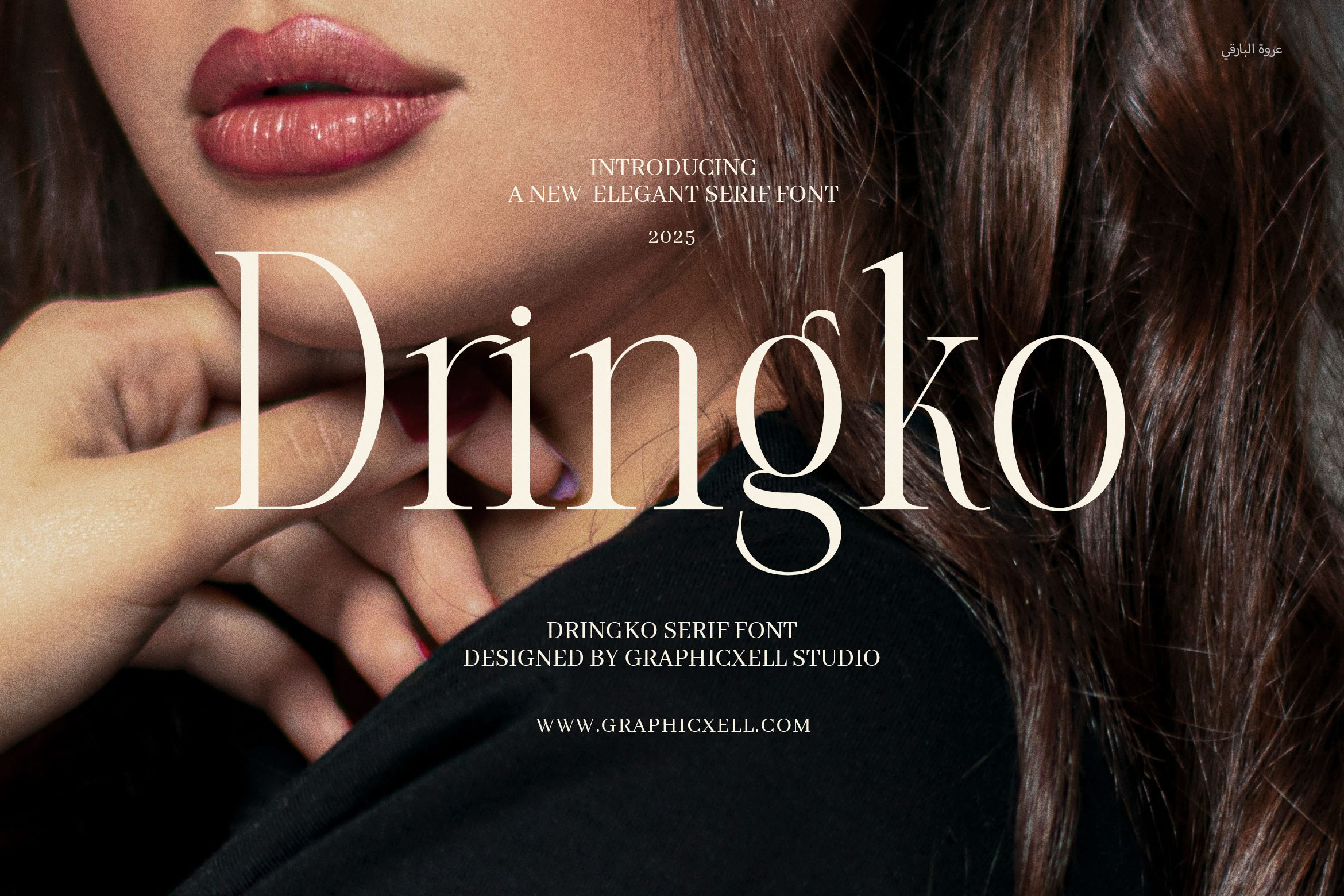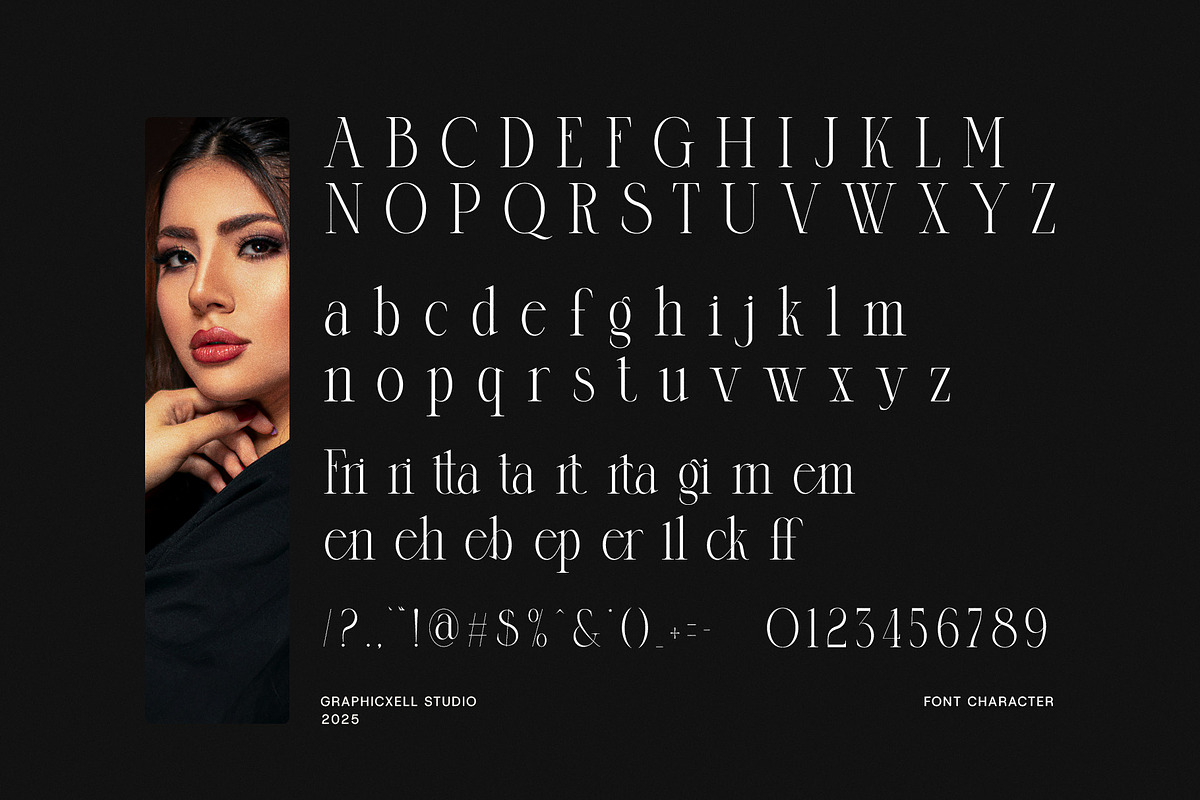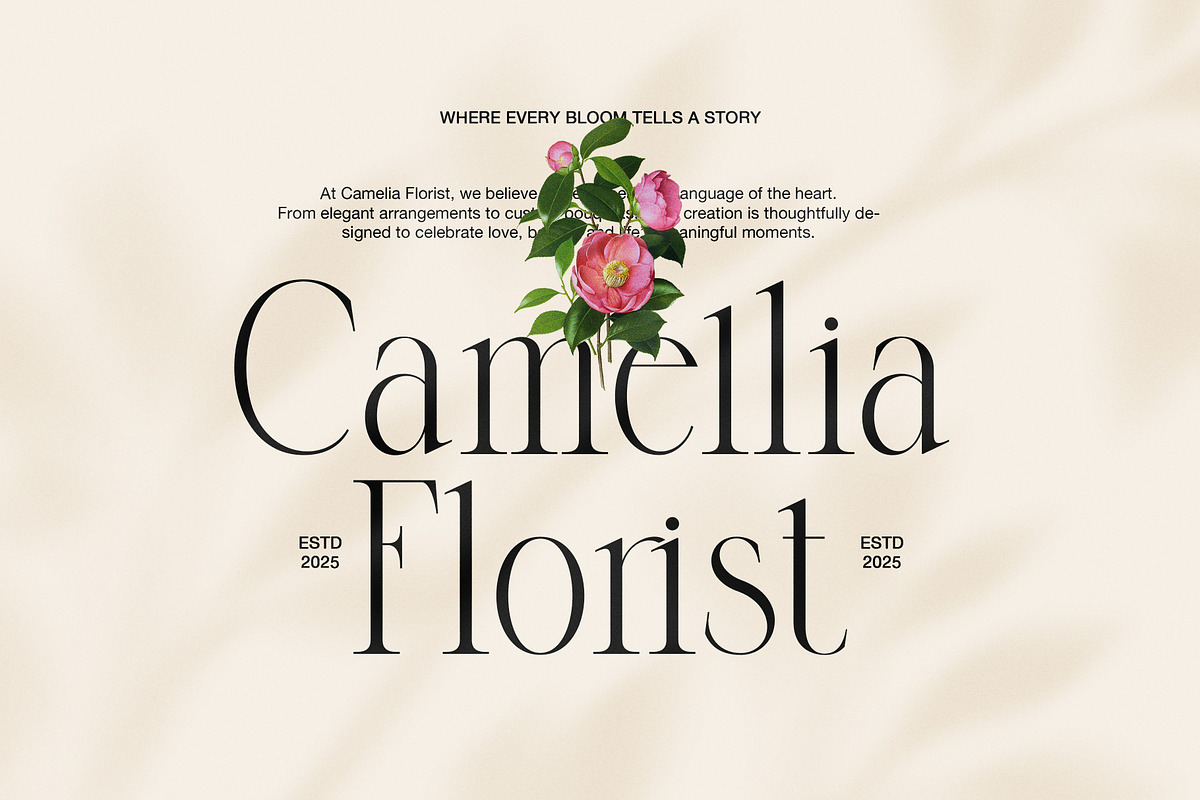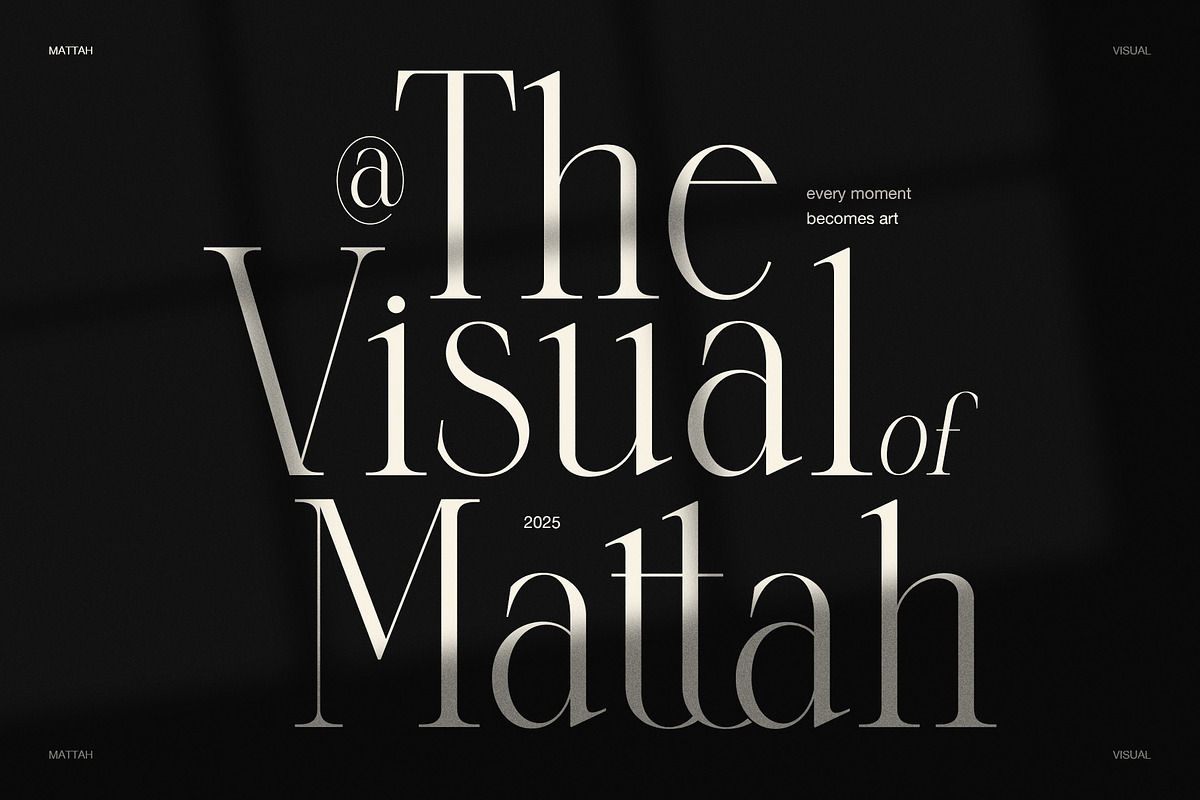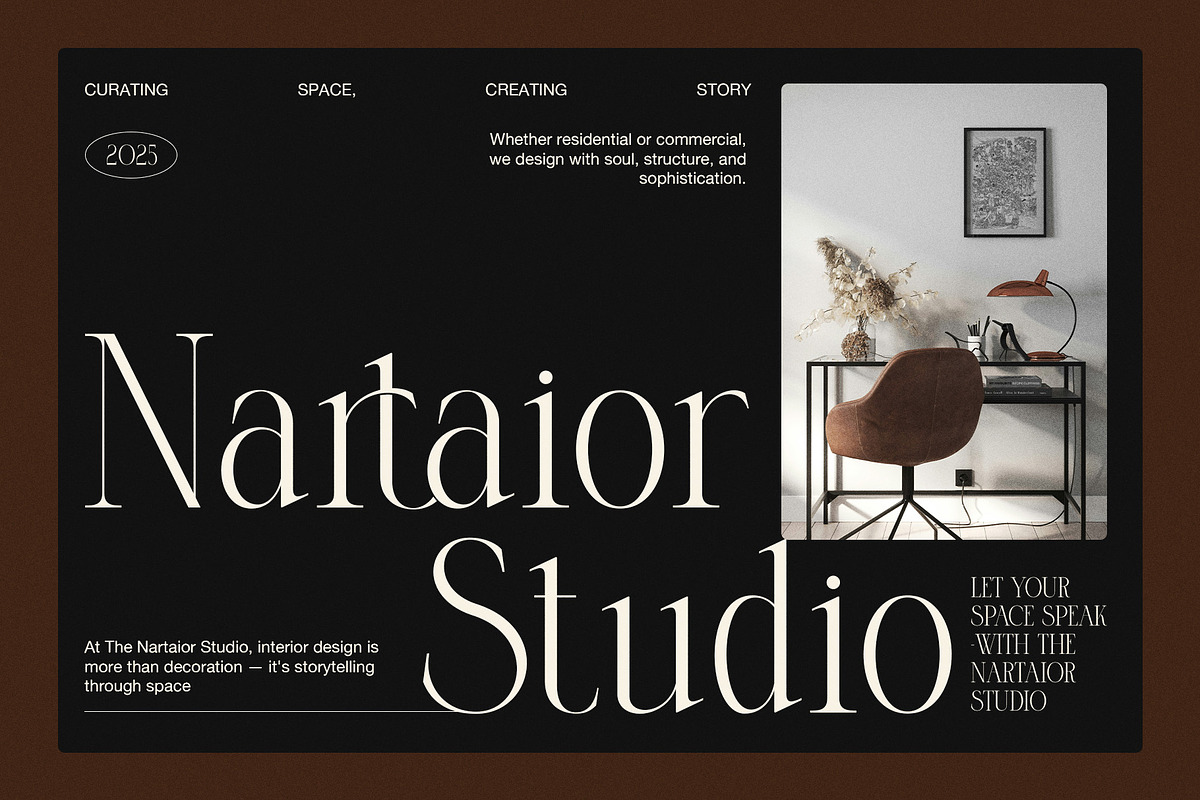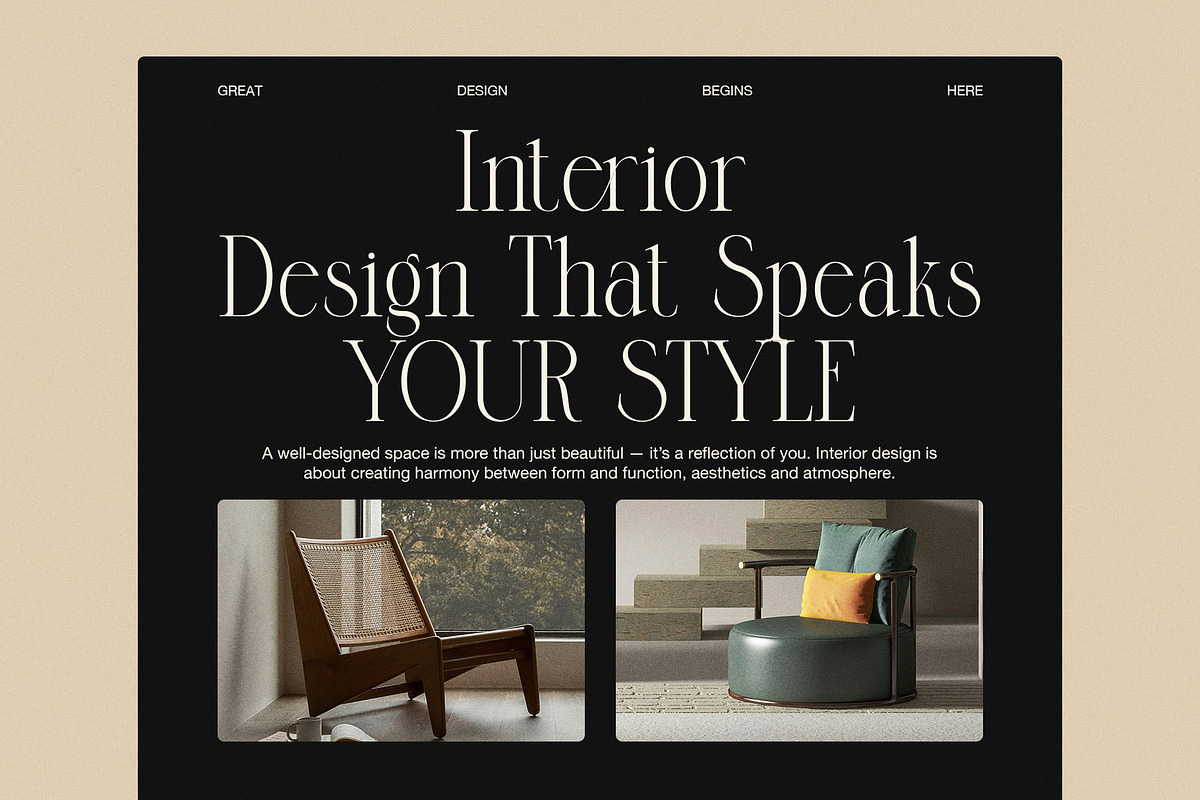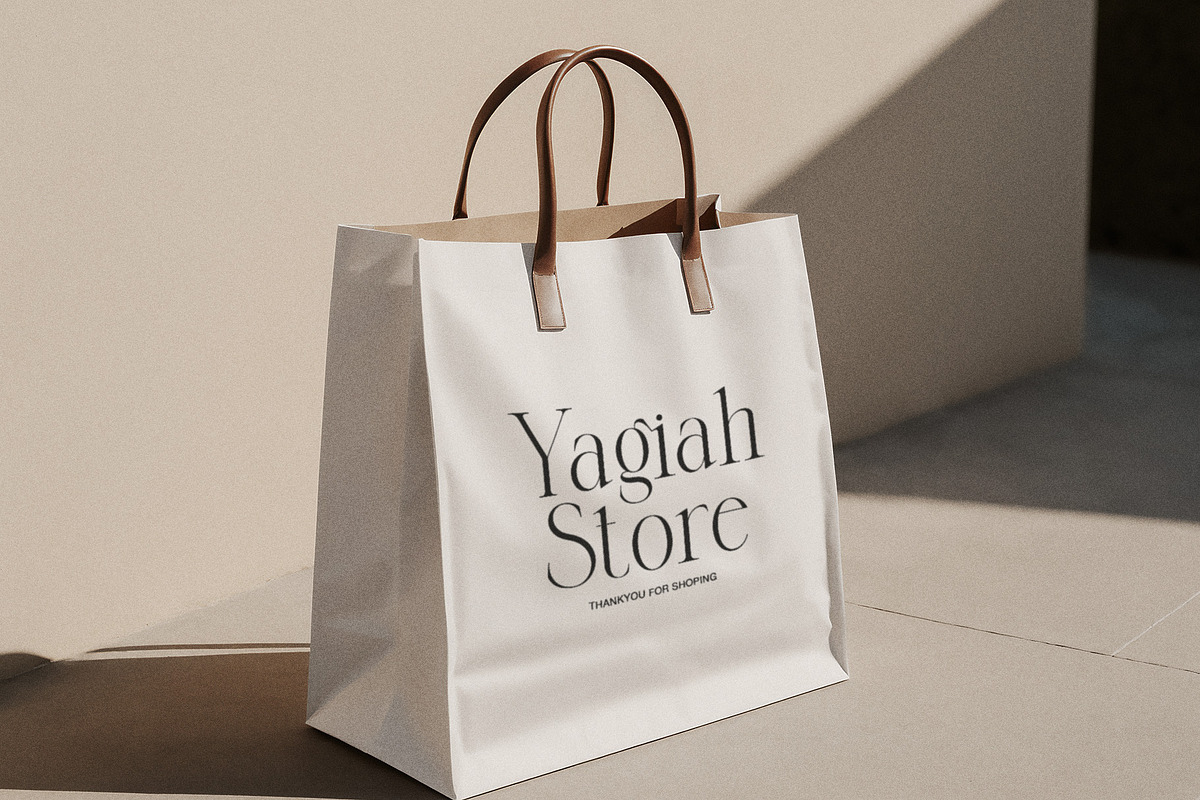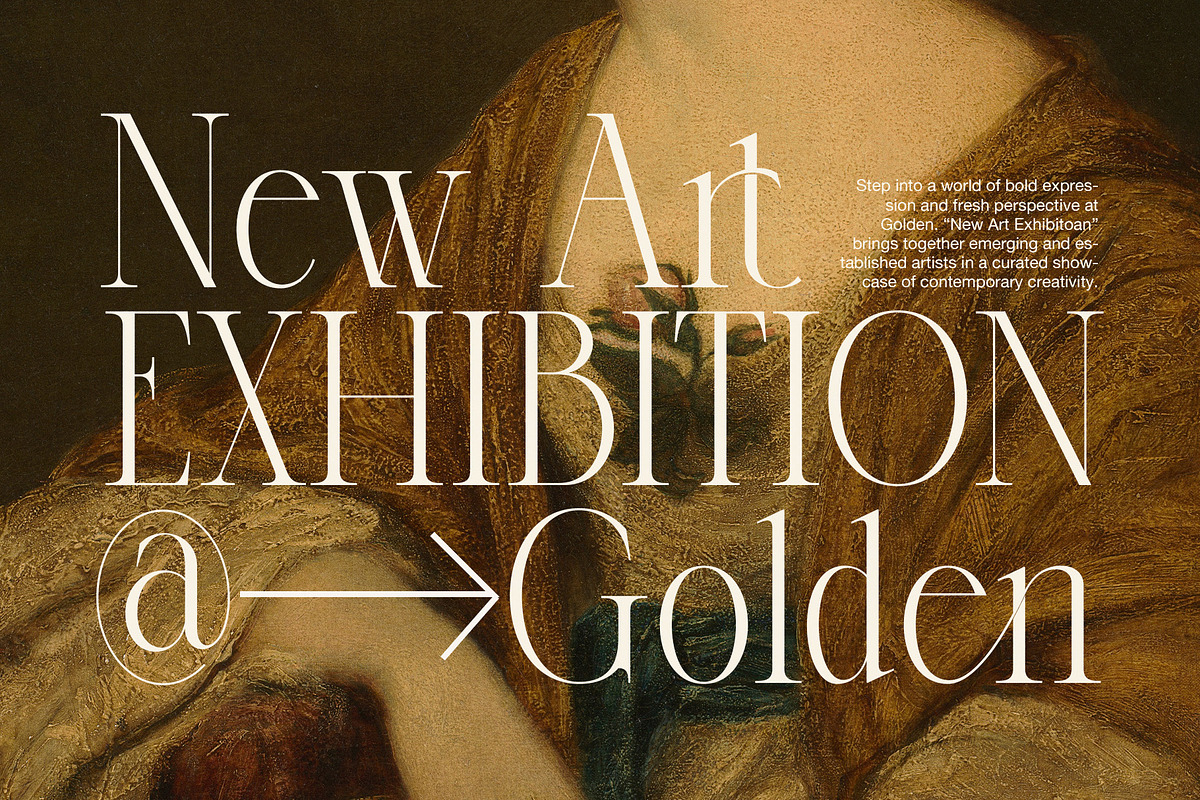
Dringko Elegant Serif Font
Introducing Dringko Elegant Serif Font, where modern sophistication meets timeless elegance. Designed to captivate, this beautiful serif font brings a unique charm to any project, balancing refinement with a touch of contemporary flair. Its graceful serifs and carefully crafted letterforms make it the ideal choice for creating luxury logos, high-end branding, and elegant website designs.
Dringko shines in magazines, advertisements, and product packaging, where its stylish presence effortlessly enhances visual impact. Its versatility allows it to shine across a variety of creative platforms, from boutiques and fashion brands to digital content and print layouts. The font's distinct, yet readable style ensures it stands out while maintaining a polished, professional aesthetic.
Whether you’re designing for a food business, a boutique e-commerce site, or any brand aiming to make a lasting impression, Dringko brings an element of grace and refinement to the table. Its elegant serifs and well-defined shapes elevate your brand’s voice, making it perfect for projects that demand attention to detail and a touch of luxury.
With its timeless design and modern appeal, Dringko Elegant Serif Font is more than just a typeface – it’s an essential tool for creating memorable and visually stunning branding, layouts, and marketing materials. Let Dringko help you communicate your brand’s unique story with style, class, and sophistication.